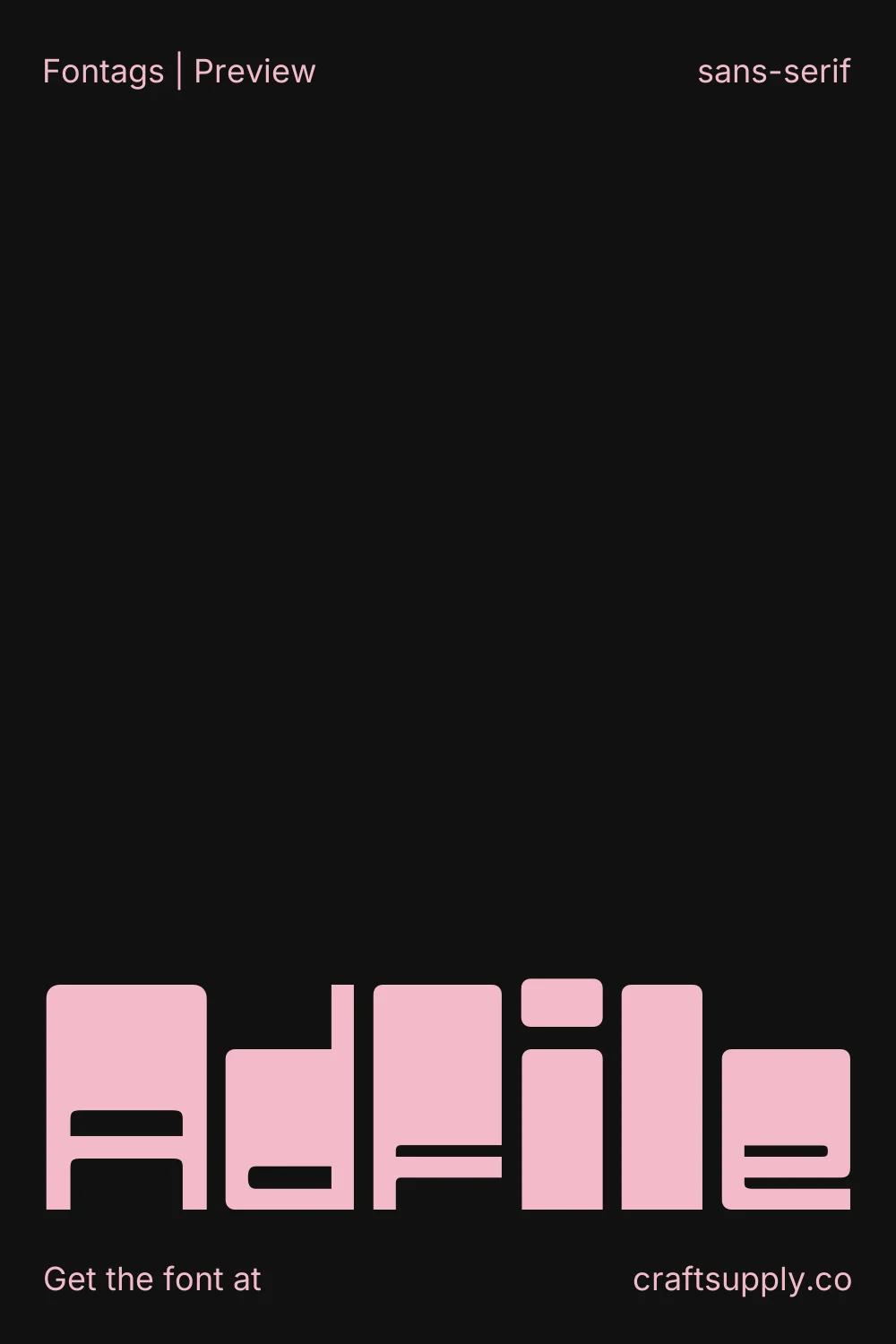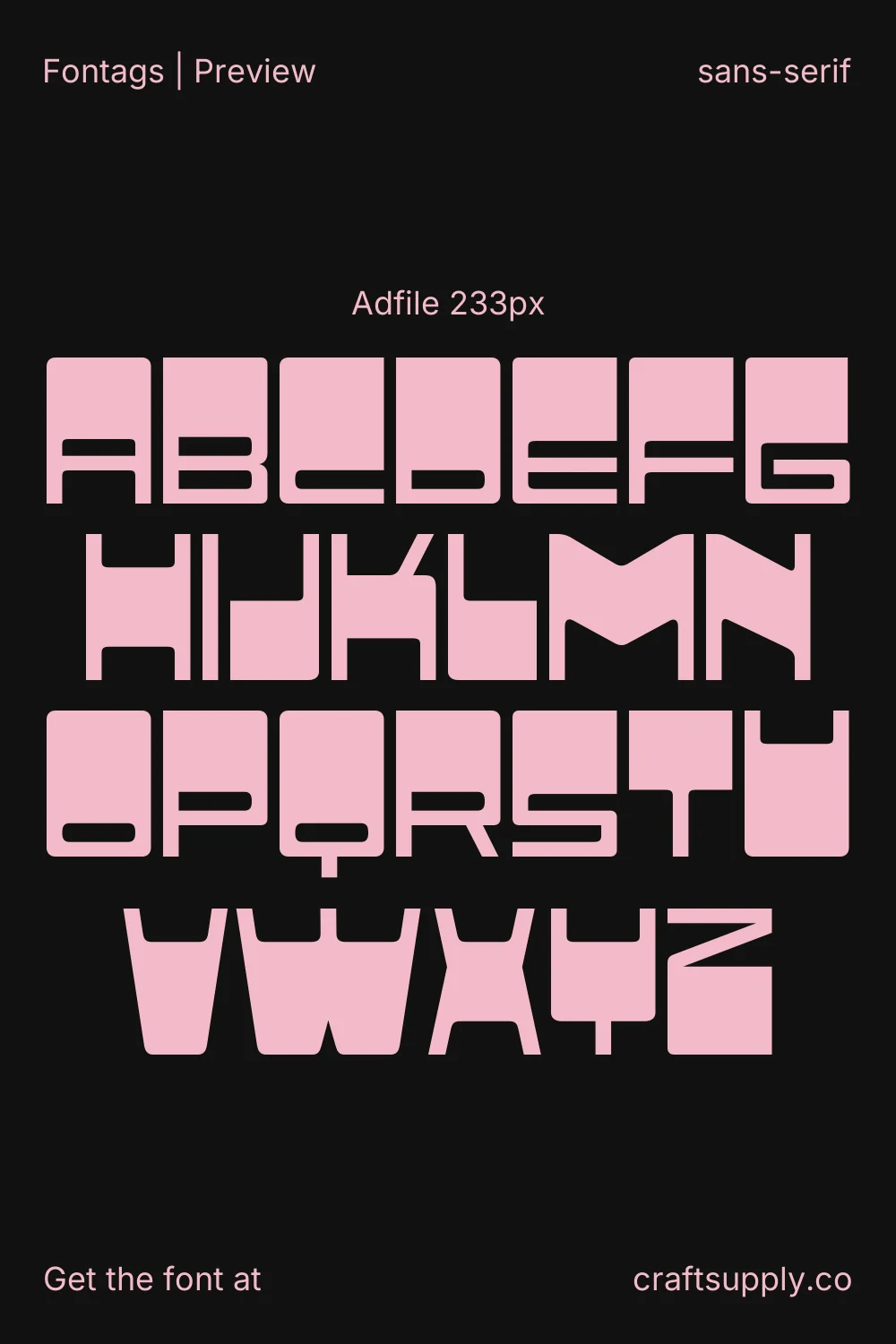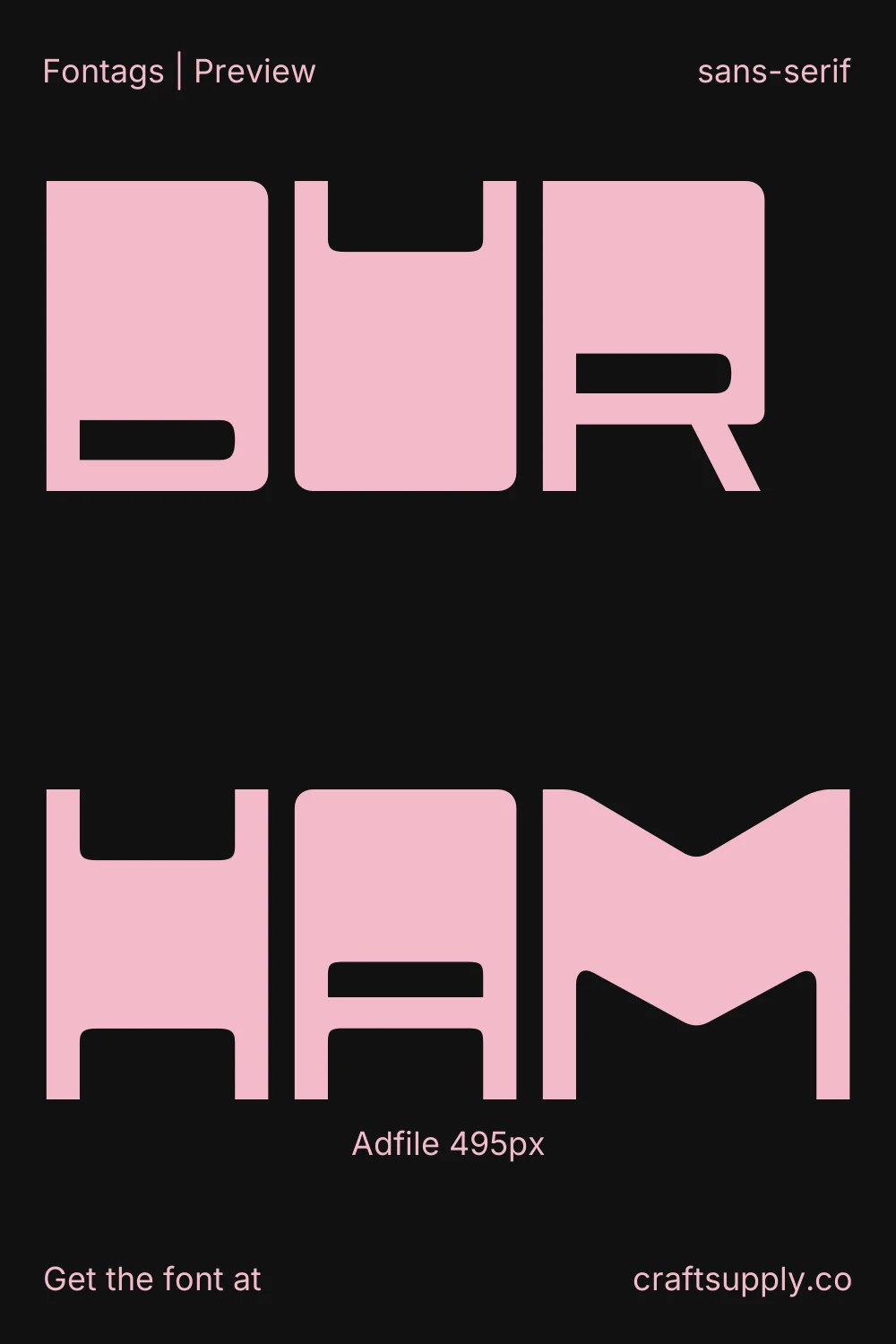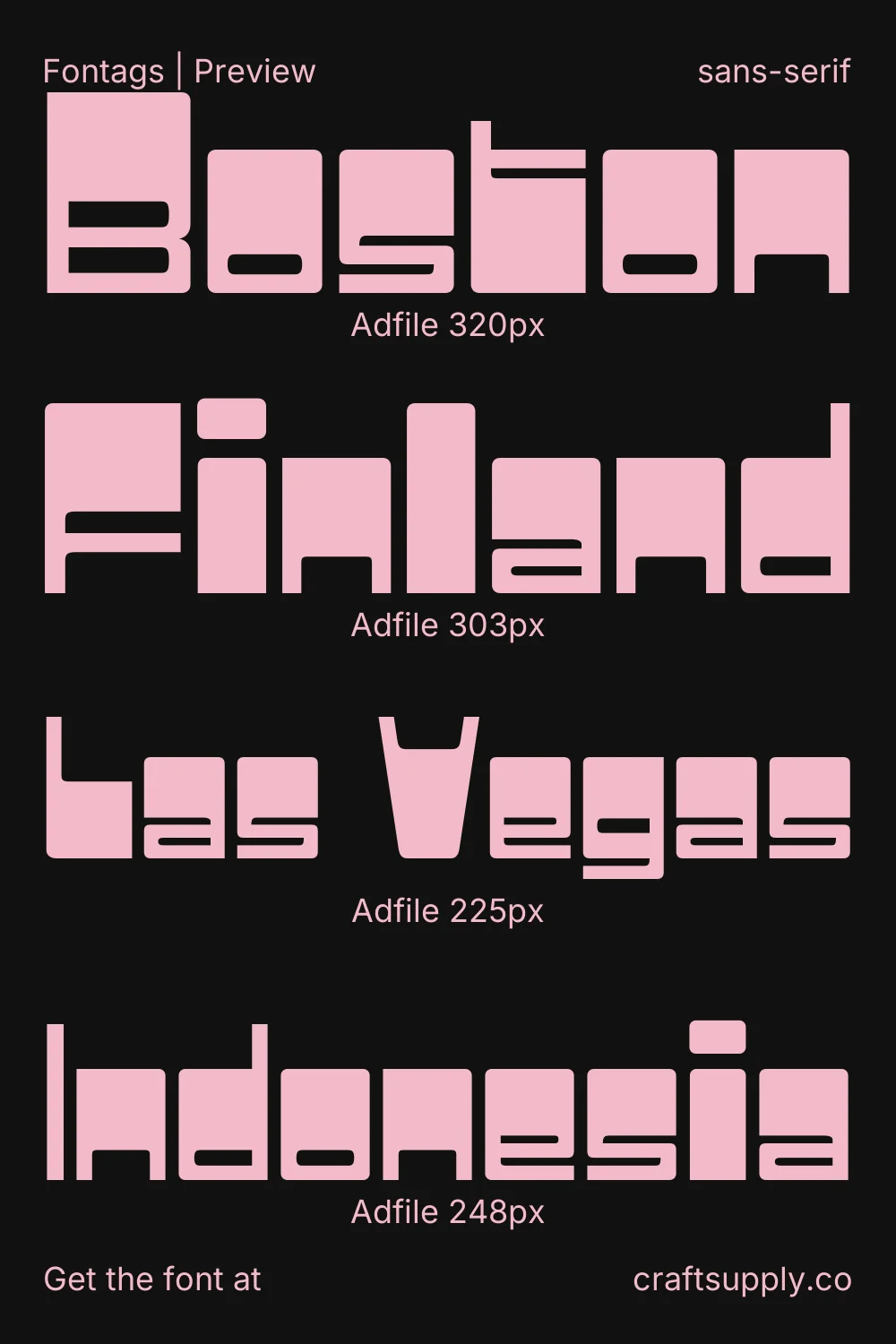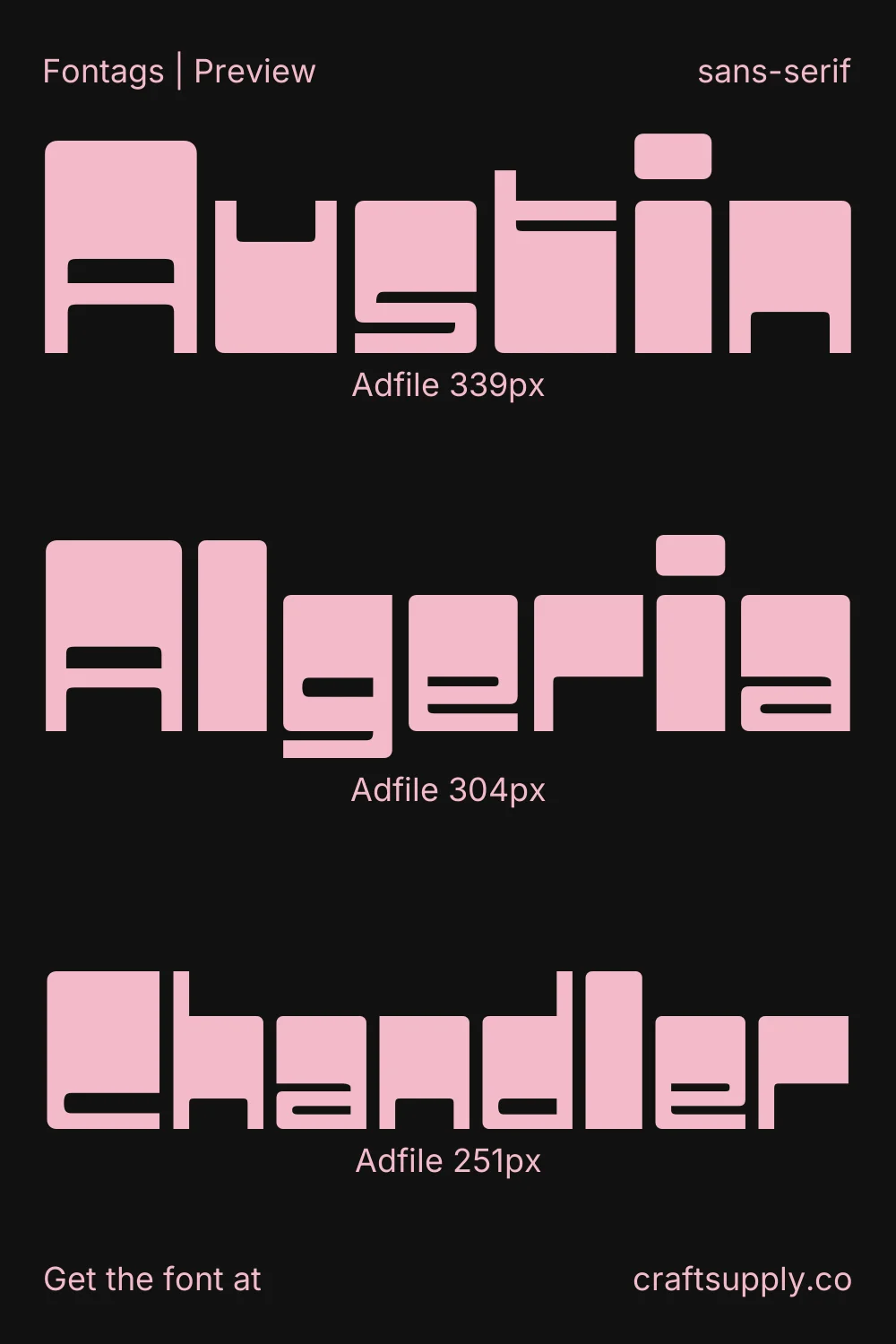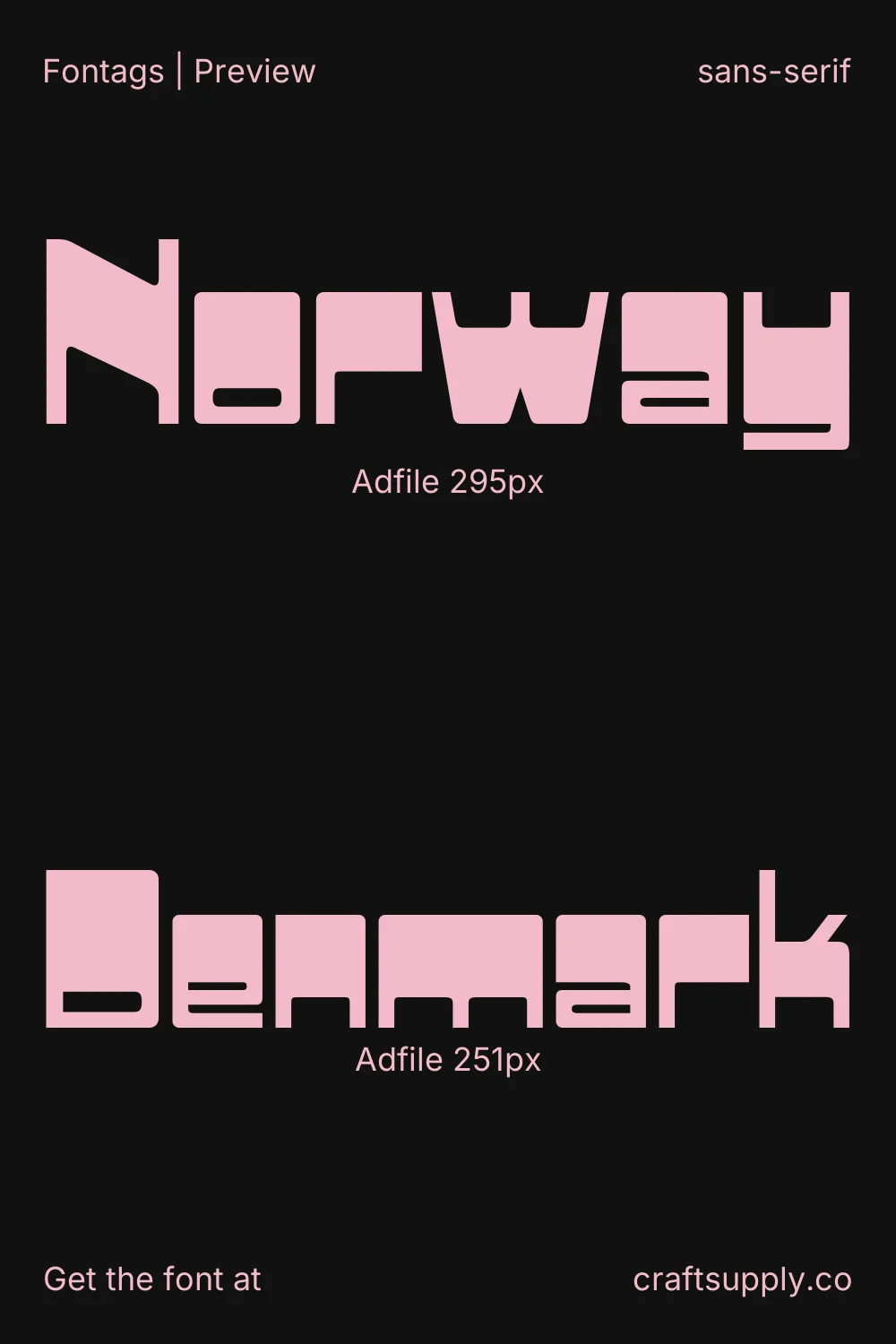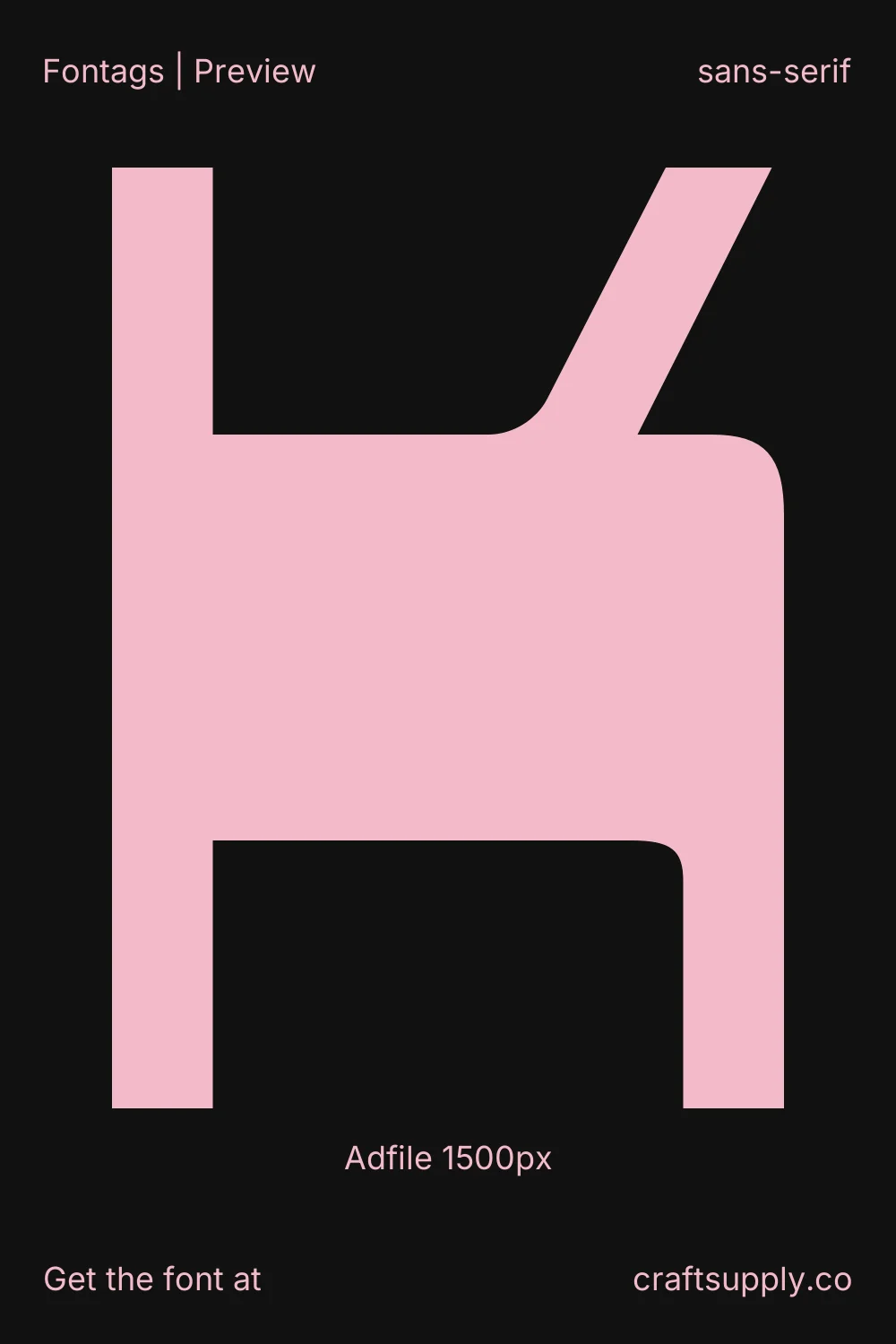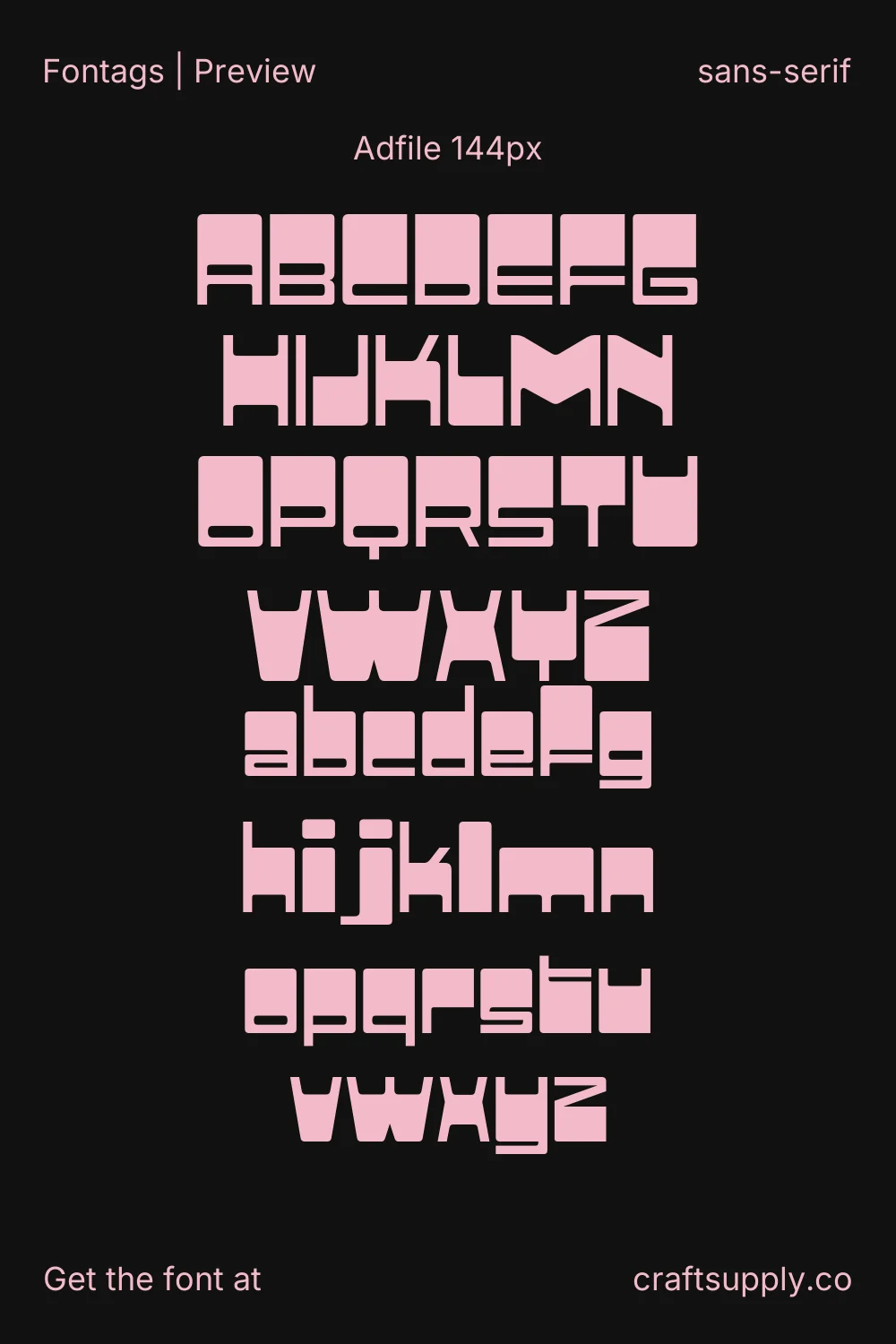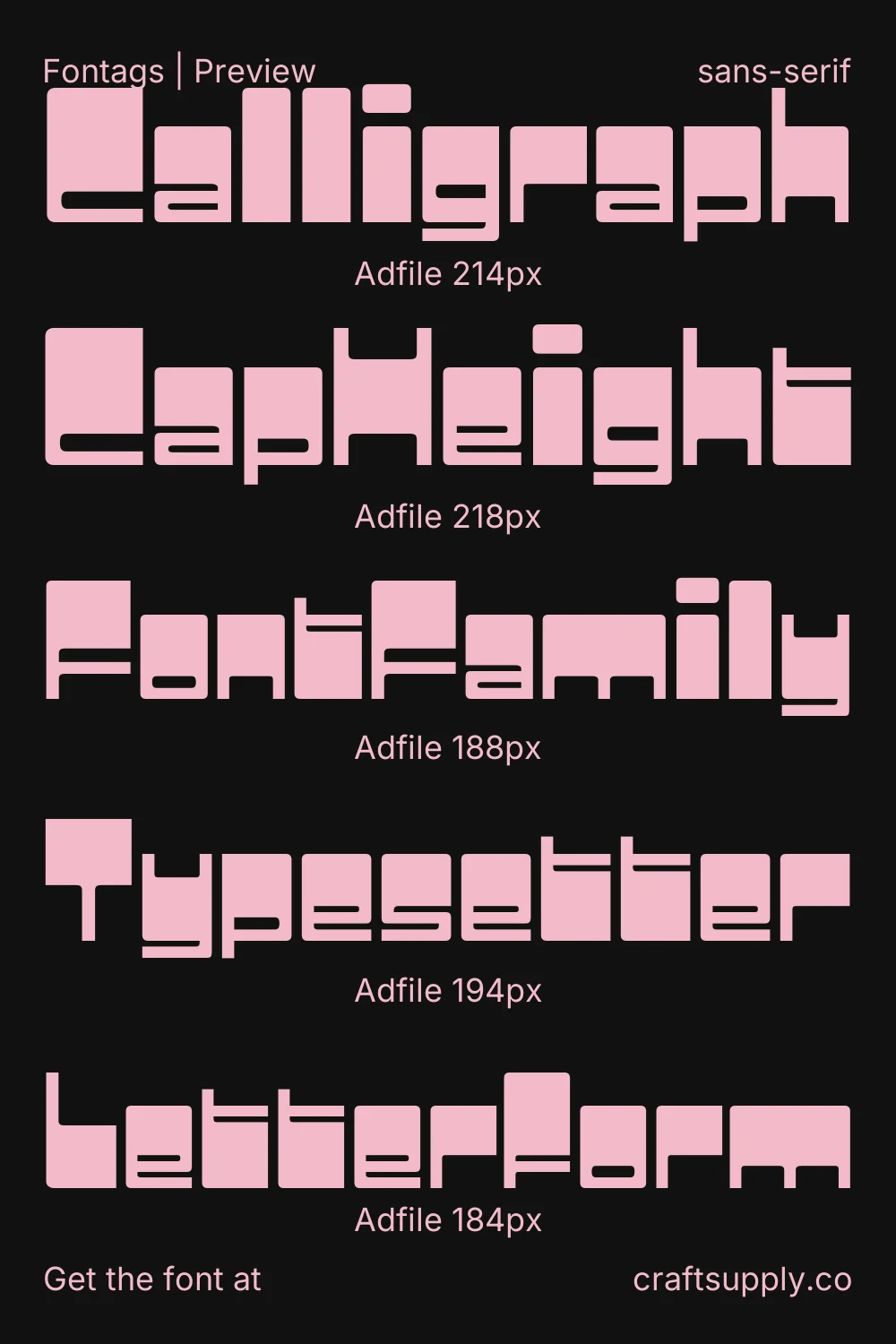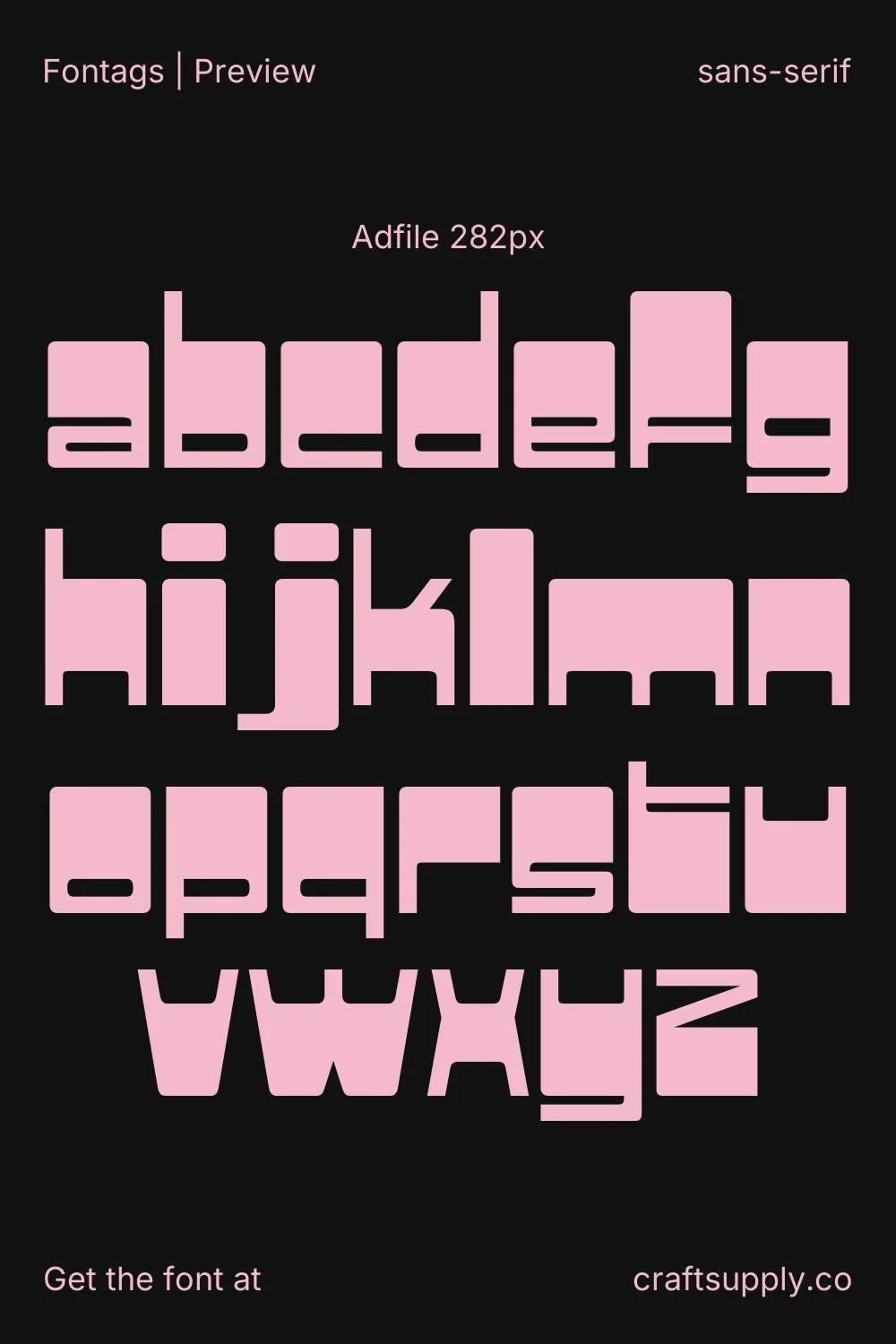
Adfile
Adfile is a funky square sans-serif display font that blends playful energy with modern, squared elegance. Its bold geometric forms create a dynamic visual impact, making it perfect for posters, digital media, and any design that demands a joyful, attention-grabbing typographic voice. The font includes regular and italic styles with multilingual support.